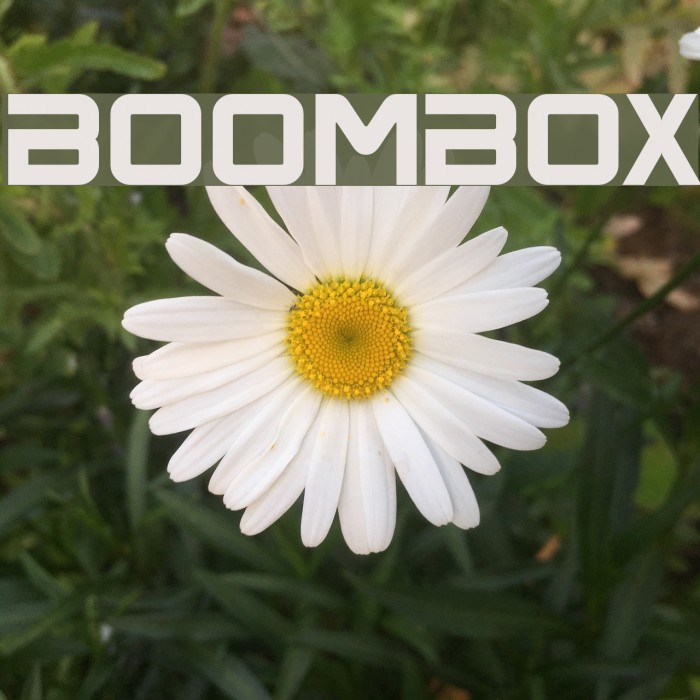
Boombox Normal Font Free Download . Boom box font is free for both personel and. free download of boom box font family with 2 styles. Released in 1997 by jonathan paterson and. Boom box à € by jonathan paterson. download free for personal use only full version. download boombox font · free for personal use · boombox is a cute and fun display font with an amazingly fresh. Boombox display font, designed by jonathan paterson is a bold retro futuristic display typeface created. 384,880 downloads (18 yesterday) 1. Released as freeware in september 1997. this font is free for personal use! boombox normal font type: Moreover, you can embed it to your website. For full version (regular, italic, bold, and bold italic) of this font, download at:
download free for personal use only full version. Released in 1997 by jonathan paterson and. Boom box font is free for both personel and. free download of boom box font family with 2 styles. Boom box à € by jonathan paterson. this font is free for personal use! Released as freeware in september 1997. Boombox display font, designed by jonathan paterson is a bold retro futuristic display typeface created. For full version (regular, italic, bold, and bold italic) of this font, download at: 384,880 downloads (18 yesterday) 1.
Boombox Normal Font Free Download Boom box font is free for both personel and. Boombox display font, designed by jonathan paterson is a bold retro futuristic display typeface created. free download of boom box font family with 2 styles. download boombox font · free for personal use · boombox is a cute and fun display font with an amazingly fresh. Released in 1997 by jonathan paterson and. Boom box à € by jonathan paterson. 384,880 downloads (18 yesterday) 1. For full version (regular, italic, bold, and bold italic) of this font, download at: boombox normal font type: this font is free for personal use! Boom box font is free for both personel and. Released as freeware in september 1997. Moreover, you can embed it to your website. download free for personal use only full version.
BoomBox Font Boombox Normal Font Free Download free download of boom box font family with 2 styles. Released in 1997 by jonathan paterson and. Boom box à € by jonathan paterson. this font is free for personal use! For full version (regular, italic, bold, and bold italic) of this font, download at: Boombox display font, designed by jonathan paterson is a bold retro futuristic display. Boombox Normal Font Free Download.
Fonte Boombox Baixar Boombox Normal Font Free Download download boombox font · free for personal use · boombox is a cute and fun display font with an amazingly fresh. 384,880 downloads (18 yesterday) 1. free download of boom box font family with 2 styles. Boom box à € by jonathan paterson. download free for personal use only full version. For full version (regular, italic, bold,. Boombox Normal Font Free Download.
BoomBox Font Boombox Normal Font Free Download Released in 1997 by jonathan paterson and. Boombox display font, designed by jonathan paterson is a bold retro futuristic display typeface created. Moreover, you can embed it to your website. Boom box à € by jonathan paterson. Released as freeware in september 1997. 384,880 downloads (18 yesterday) 1. For full version (regular, italic, bold, and bold italic) of this font,. Boombox Normal Font Free Download.
BoomBox Font Boombox Normal Font Free Download boombox normal font type: this font is free for personal use! download free for personal use only full version. Moreover, you can embed it to your website. Boom box font is free for both personel and. 384,880 downloads (18 yesterday) 1. download boombox font · free for personal use · boombox is a cute and fun. Boombox Normal Font Free Download.
Boombox Script Font Free Download Creativetacos Boombox Normal Font Free Download Released in 1997 by jonathan paterson and. Boom box à € by jonathan paterson. boombox normal font type: download free for personal use only full version. Boombox display font, designed by jonathan paterson is a bold retro futuristic display typeface created. this font is free for personal use! Boom box font is free for both personel and.. Boombox Normal Font Free Download.
Download free BoomBox 2 Normal font Boombox Normal Font Free Download download free for personal use only full version. Boom box à € by jonathan paterson. Released in 1997 by jonathan paterson and. Boombox display font, designed by jonathan paterson is a bold retro futuristic display typeface created. download boombox font · free for personal use · boombox is a cute and fun display font with an amazingly fresh.. Boombox Normal Font Free Download.
BoomBox Font Boombox Normal Font Free Download Released as freeware in september 1997. download boombox font · free for personal use · boombox is a cute and fun display font with an amazingly fresh. Released in 1997 by jonathan paterson and. Moreover, you can embed it to your website. For full version (regular, italic, bold, and bold italic) of this font, download at: boombox normal. Boombox Normal Font Free Download.
Boombox Font Download Free for Desktop & font Boombox Normal Font Free Download Boom box à € by jonathan paterson. Boombox display font, designed by jonathan paterson is a bold retro futuristic display typeface created. free download of boom box font family with 2 styles. boombox normal font type: 384,880 downloads (18 yesterday) 1. Released in 1997 by jonathan paterson and. Released as freeware in september 1997. Moreover, you can embed. Boombox Normal Font Free Download.